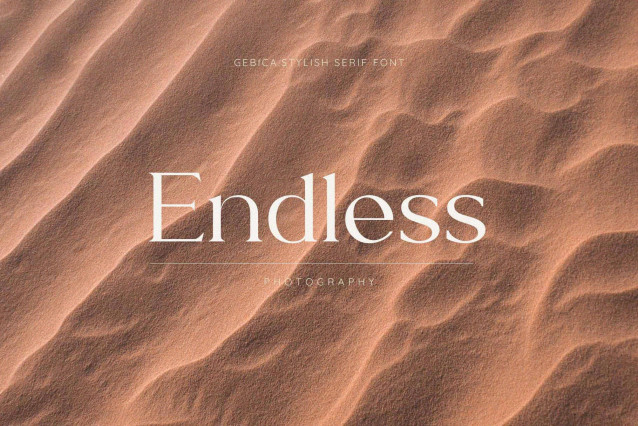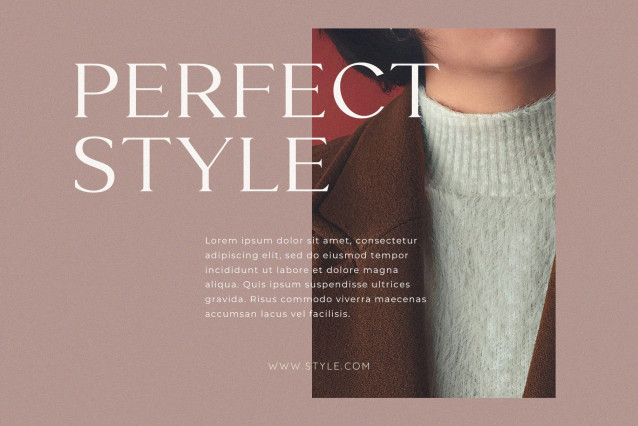
Gebica Font
Gebica Font is a modern and classy typeface, best used as a display for headings, logos, branding, magazines, product packaging and invitations. Gebica come with clean lines and smooth curves give any project an extra touch of class.